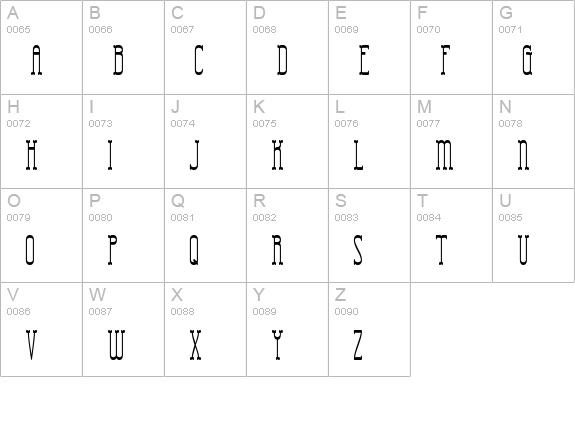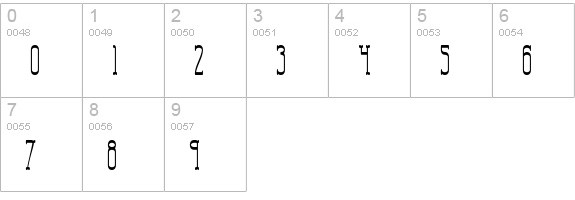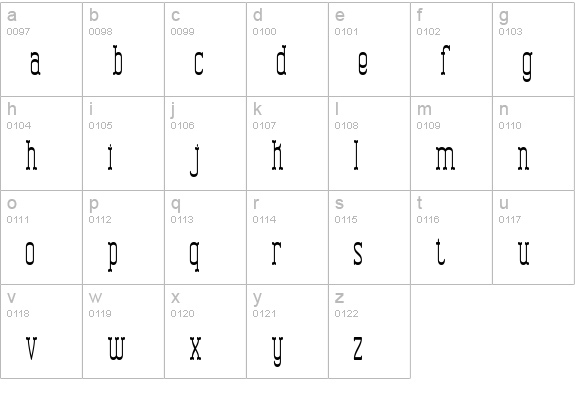
Combustion Tall BRK Font Details
Combustion Tall BRK font is a striking and dynamic typeface that is sure to make your designs stand out. With its tall and condensed letterforms, this font exudes a sense of energy and modernity. Whether you're working on a poster, logo, or any other design project, Combustion Tall BRK will add a touch of boldness and style. Best of all, this font is completely free to download at FontsMarket.com. So, you can easily enhance your creative projects without any extra cost. Don't miss out on the opportunity to use this eye-catching font in your designs and make a lasting impression on your audience. Download Combustion Tall BRK today and let your creativity soar!